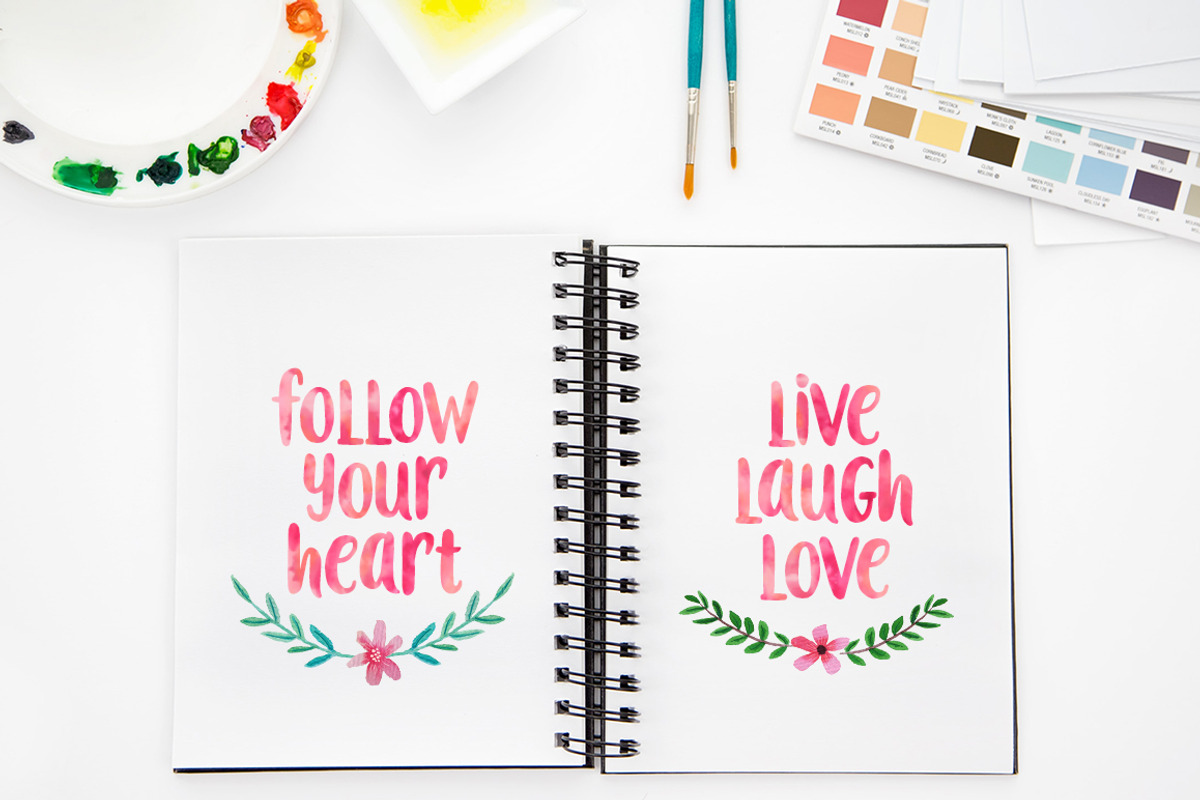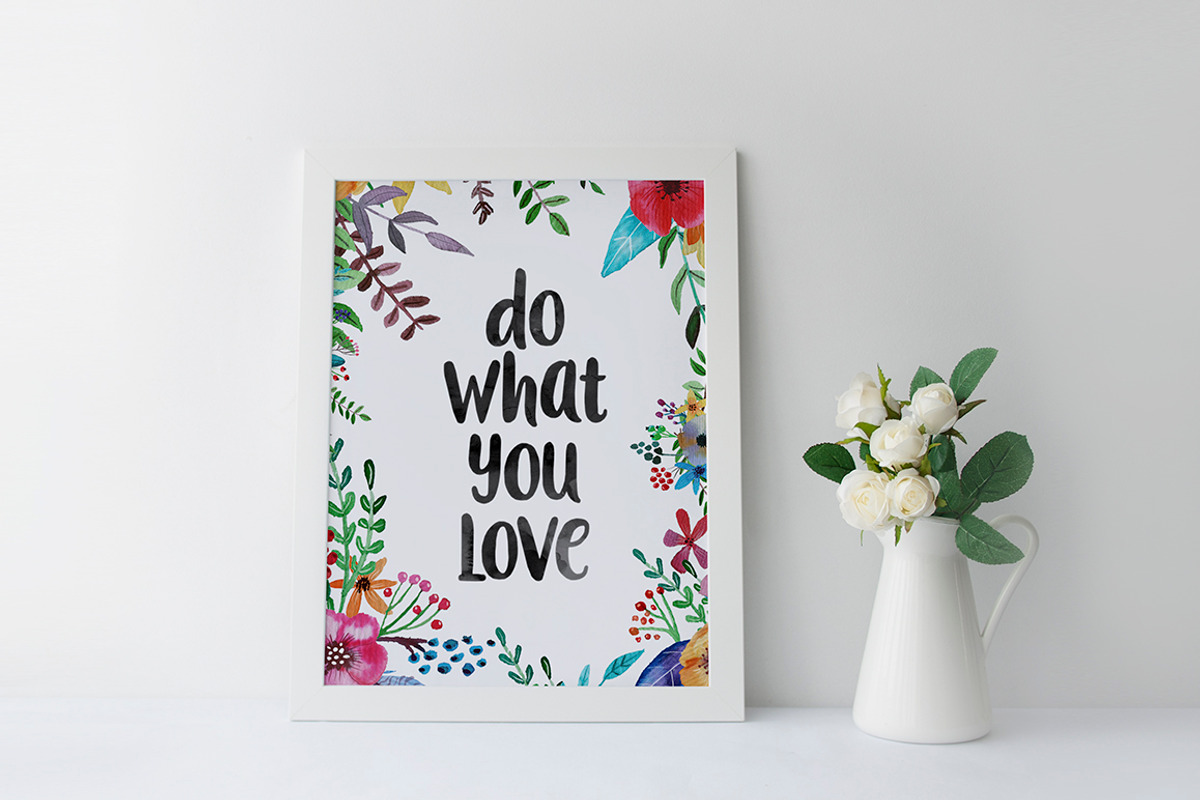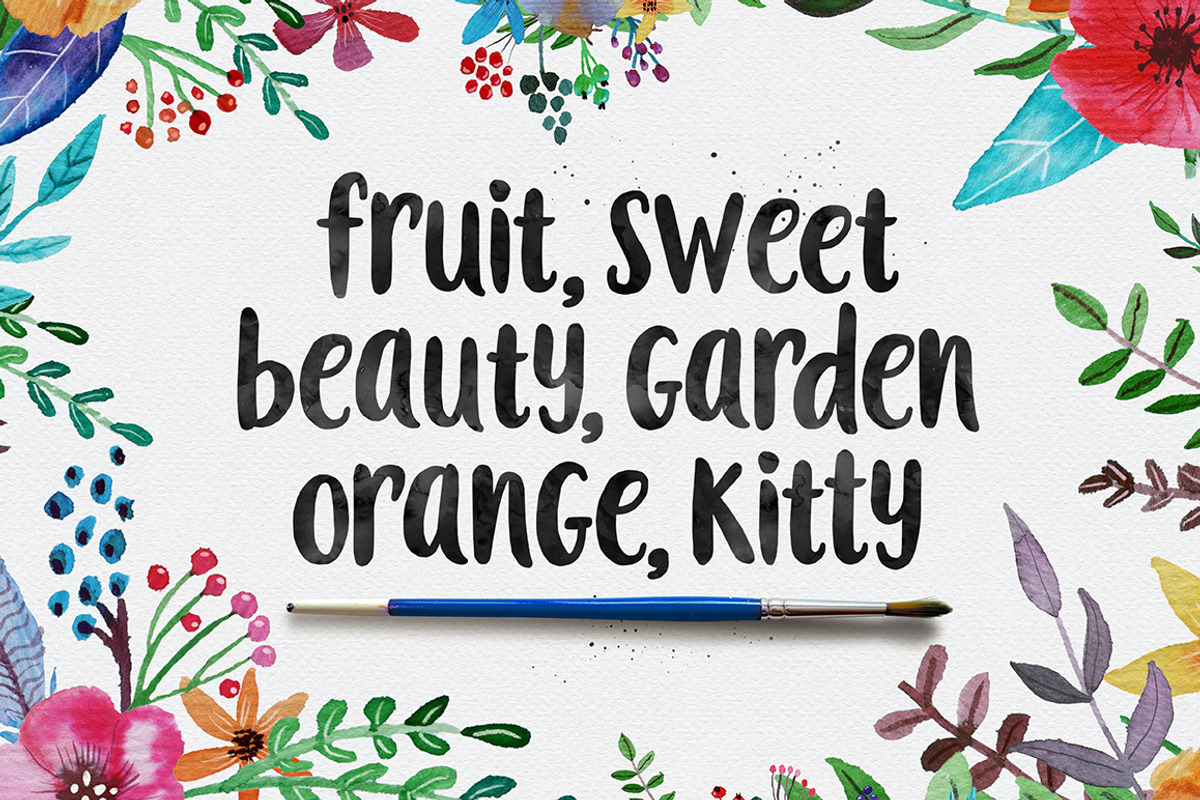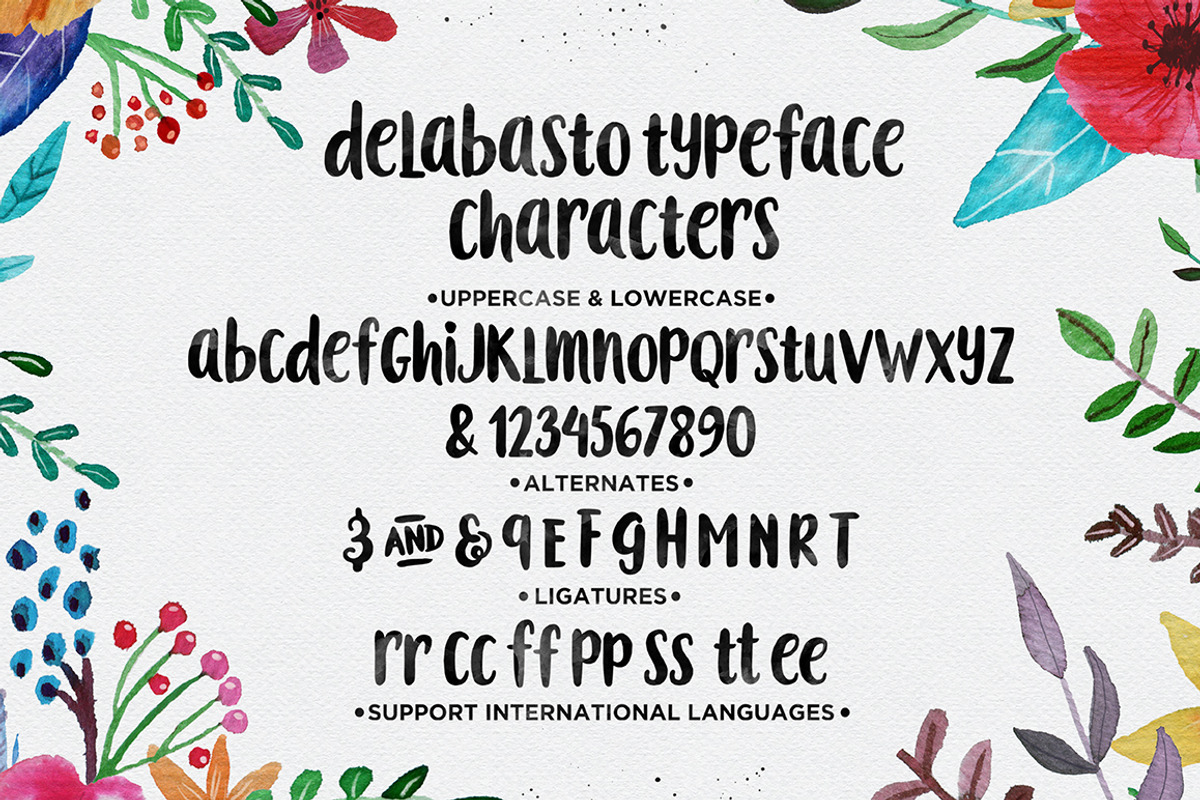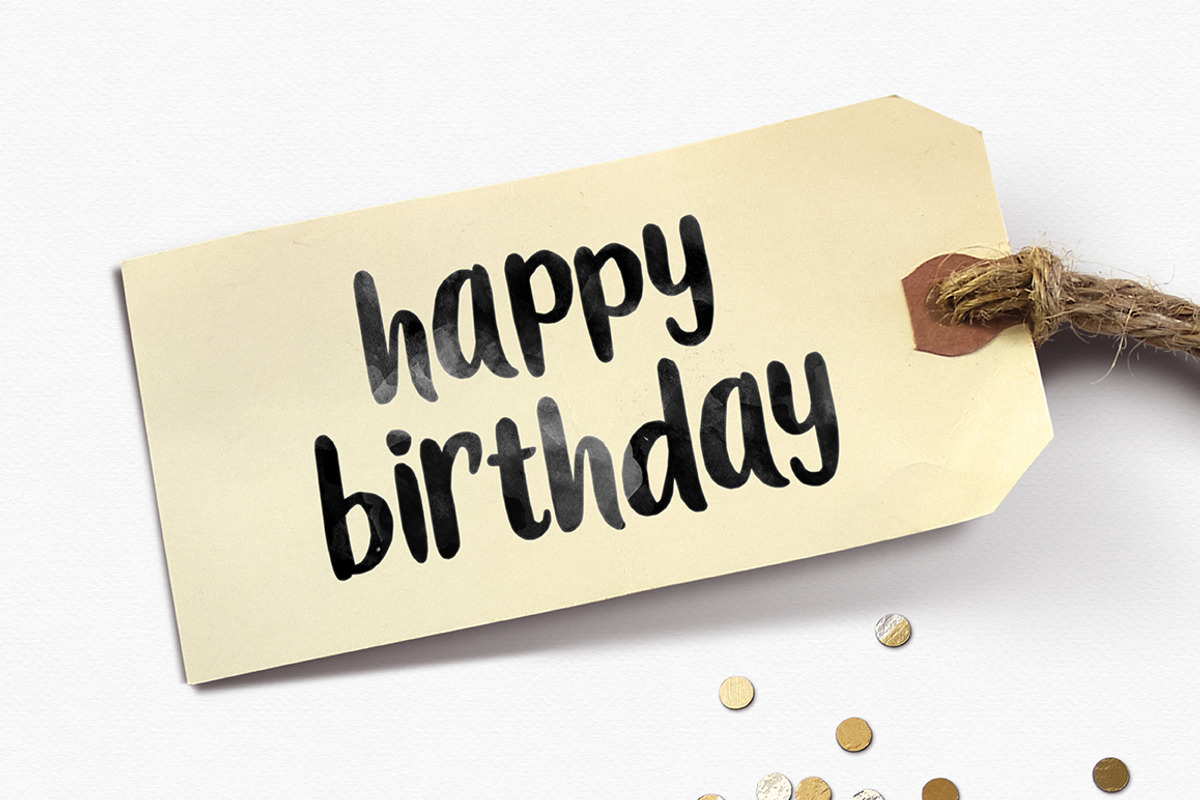
Delabasto Typeface
Delabasto Typeface by Seniors is a font selected for branding, posters, packaging, typography.
- Delabasto includes several ligatures, alternates and international support for most western languages.
Why Delabasto Typeface is worth a look
Delabasto Typeface by Seniors fits naturally into Branding, posters, packaging, typography.